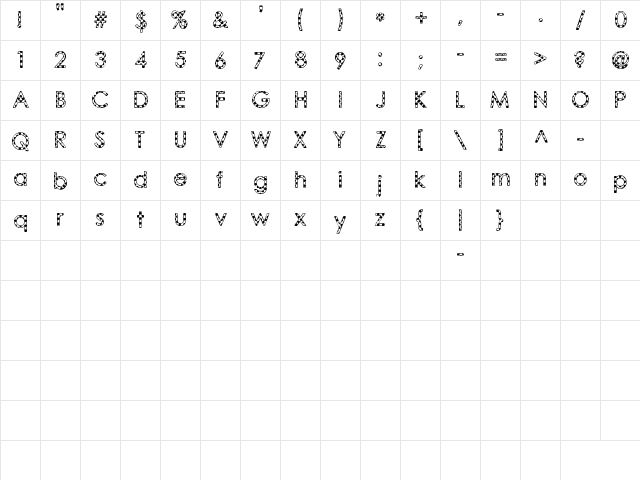
Rock it with Renee Regular
| Designer | Kimberly Geswein |
Design Context for Rock it with Renee Typeface
Rock it with Renee offers clean, dependable letterforms without strong stylistic allegiance, making it a practical choice for designers who need flexibility.